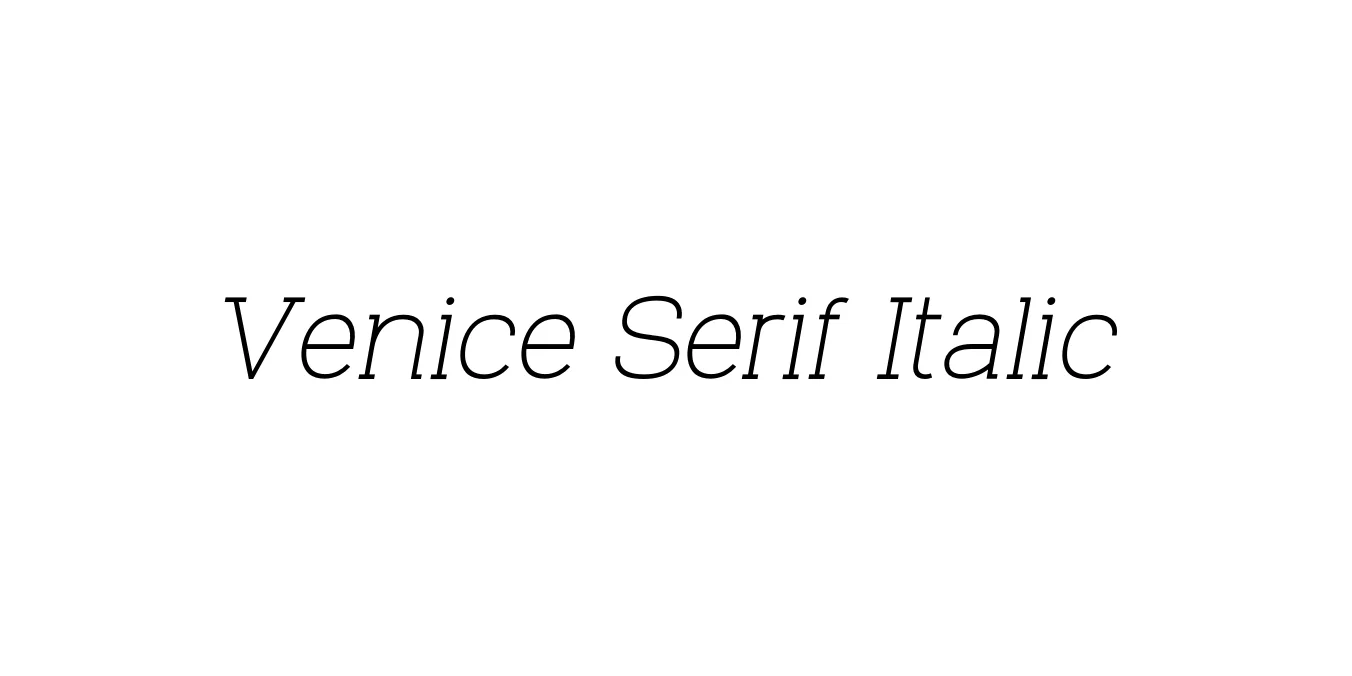
Venice Serif Italic
Designed by Pavel Levchuk
Venice Serif Italic is a sophisticated typeface that blends classical proportions with a contemporary aesthetic. It was designed to offer a balance between readability and decorative flair, featuring elegant serifs and a distinct slant that conveys motion and grace. The italic variant specifically emphasizes a calligraphic touch, making it ideal for editorial designs and high-end branding projects where a touch of refinement is required.
This font stands out due to its unique combination of traditional letterforms and modern geometric precision. It is widely used by designers looking to evoke a sense of heritage and luxury without feeling dated. Whether used for body text in digital publications or headlines in print media, Venice Serif Italic provides a versatile solution for professional typographic needs, ensuring that every character remains legible while maintaining its artistic integrity.
Venice Serif Italic Best Uses
Perfect for magazine layouts and literary publications.
Ideal for high-end fashion or luxury brand identities.
Adds an elegant and sophisticated touch to invitations and cards.
Creates a distinct and professional look for website banners.